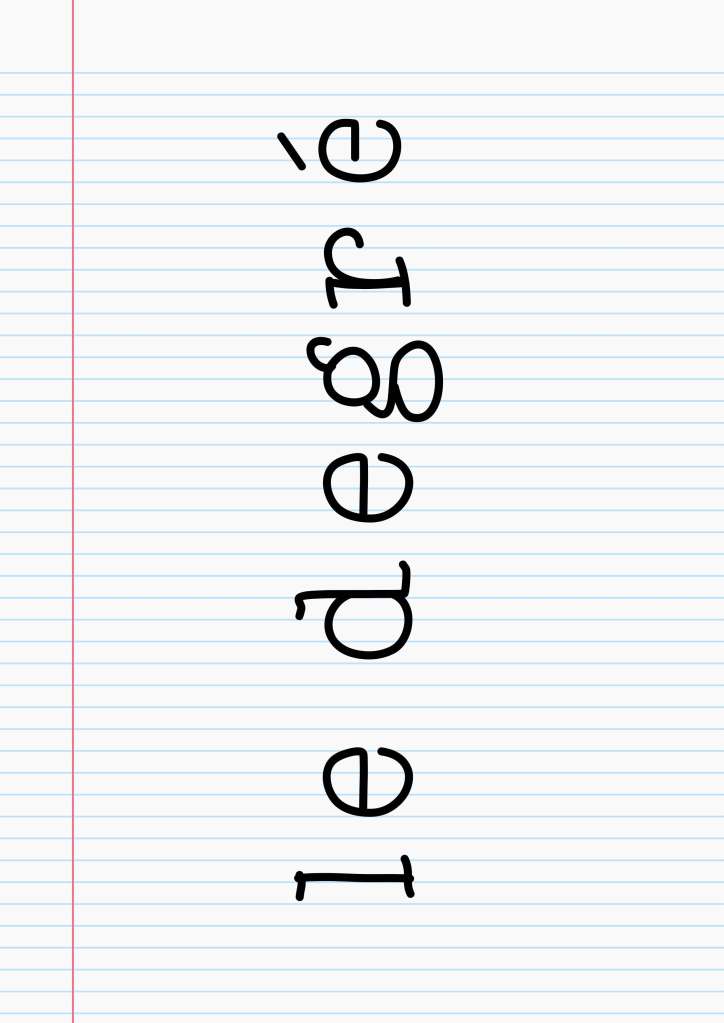
le degré typeface Posted by richardhiglett on February 26, 2015April 10, 2016 hybrid font created for Chapter Exhibition. A font that can be applied by eye and without a level. Available to own here Like this:Like Loading... Related